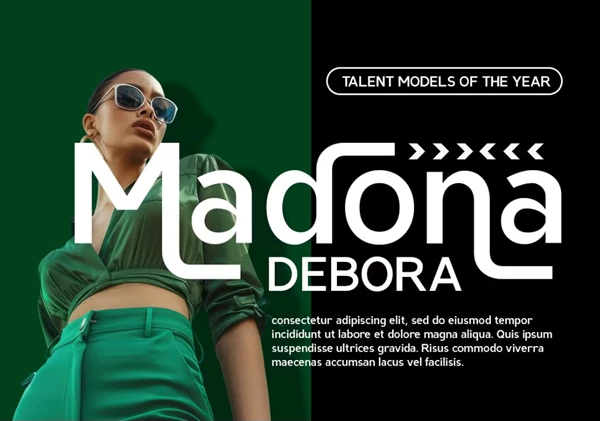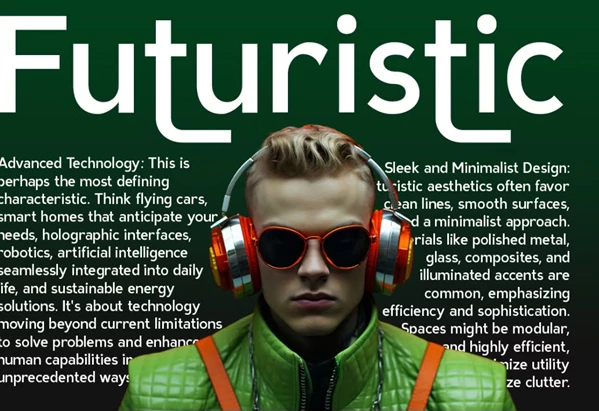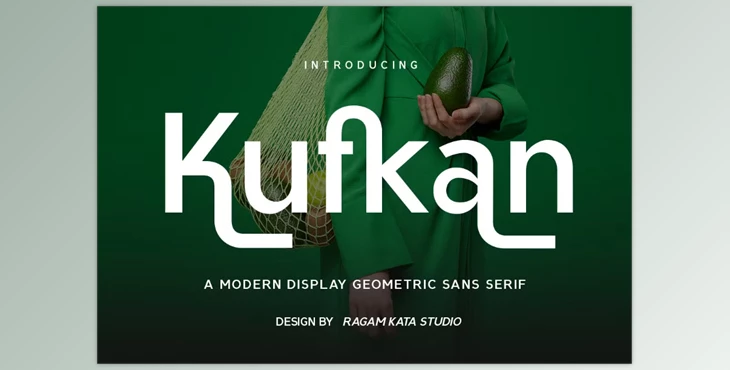
Kufkan Modern Geometric Font:
Kufkan is a modern geometric sans serif intended for branding and visual narratives, as it creates a clean, balanced look through its letterforms. This font will render any design project, packaging, editorial designs, website interfaces, and logos with a minimalistic approach and elegantly stylish finish. Kufkan is perfect for sustainability brands, fashion products, technology companies, and creative agencies in need of a fresh yet assured design aesthetic.
- Alternate characters
- Ligatures
- Multilingual support